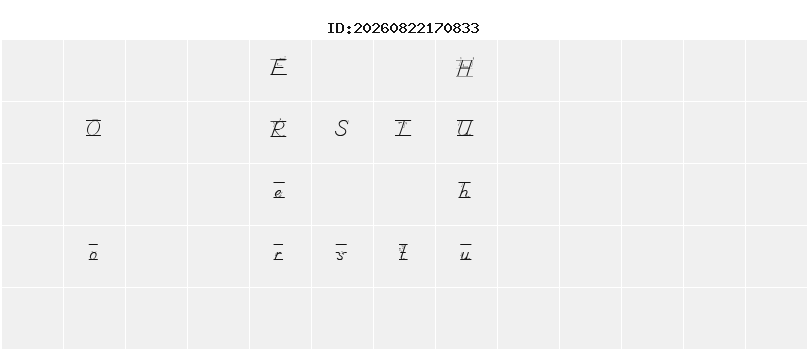
SchoolManuscriptArrowsDemo Preview
• Font Name: SchoolManuscriptArrowsDemo
• Full Font Name: SchoolManuscriptArrowsDemo
About SchoolManuscriptArrowsDemo.ttf
SchoolManuscriptArrowsDemo.ttf is a modern, elegant sans-serif font designed for ultimate readability and visual harmony. Perfect for branding, headlines, web design, and print materials.